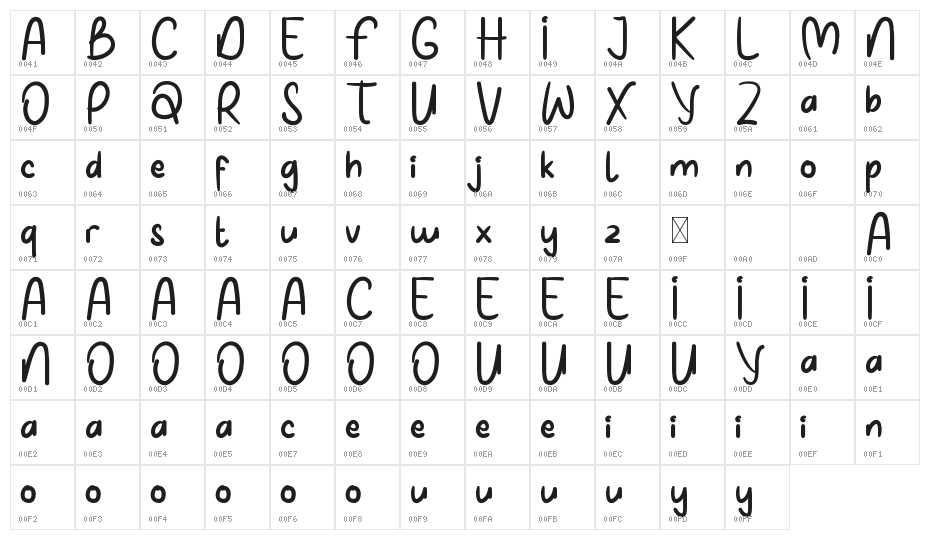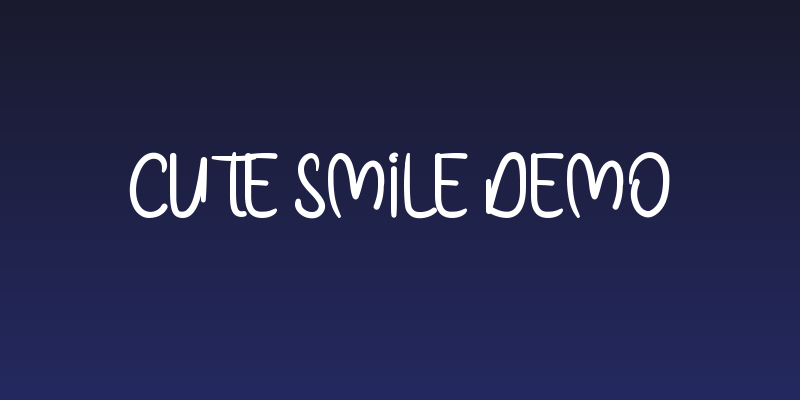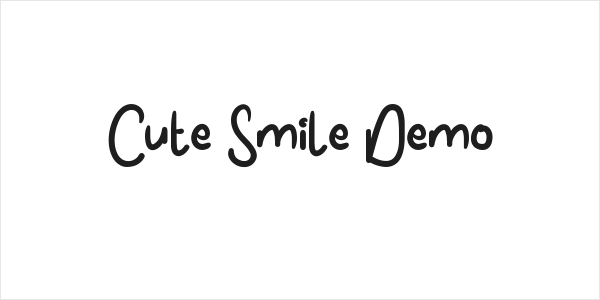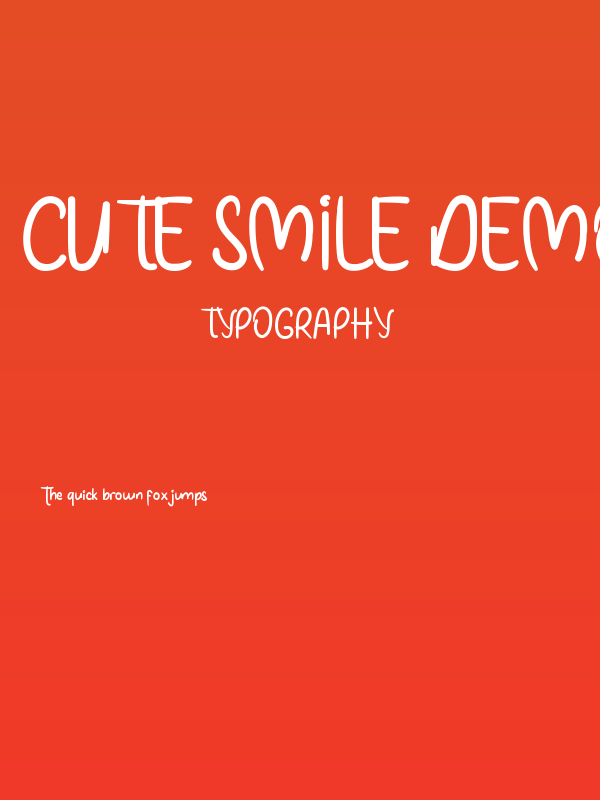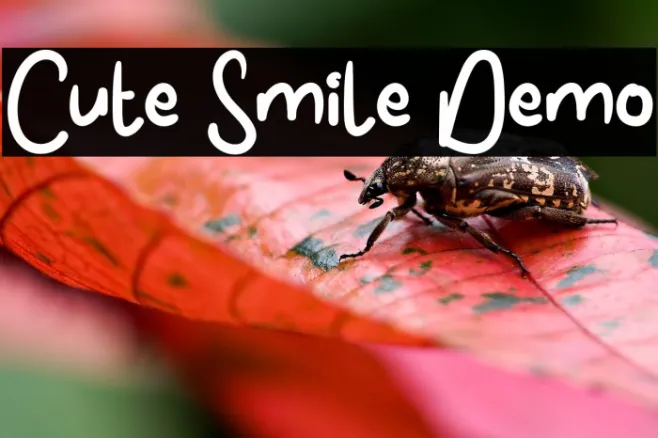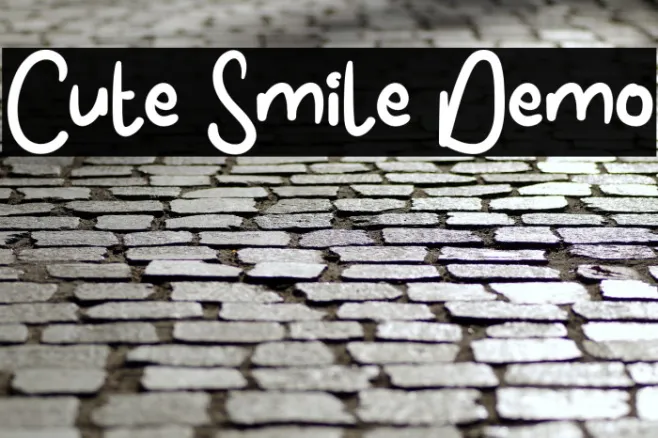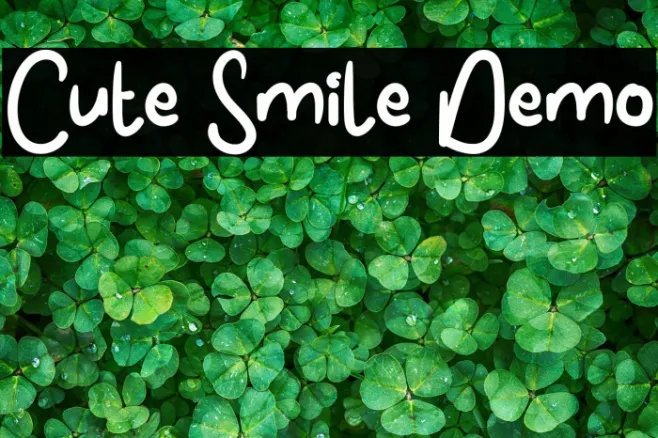
Cute Smile Demo Font
Cute Smile Demo Description
This playful and whimsical font features a handwritten style with a friendly and approachable appearance. The characters are rounded and slightly irregular, giving them a casual and informal look. The uppercase letters are tall and narrow, while the lowercase letters are more rounded and compact. The font maintains a consistent stroke width, contributing to its clean and legible design. It includes both uppercase and lowercase letters, numbers, and a selection of special characters, making it versatile for various design needs. The overall style is cheerful and lighthearted, perfect for projects that require a touch of fun and personality.
| Use Case | Logos, Headlines, Informal text |
| Proposed Projects | Ideal for children's books, greeting cards, playful branding, and social media graphics. |